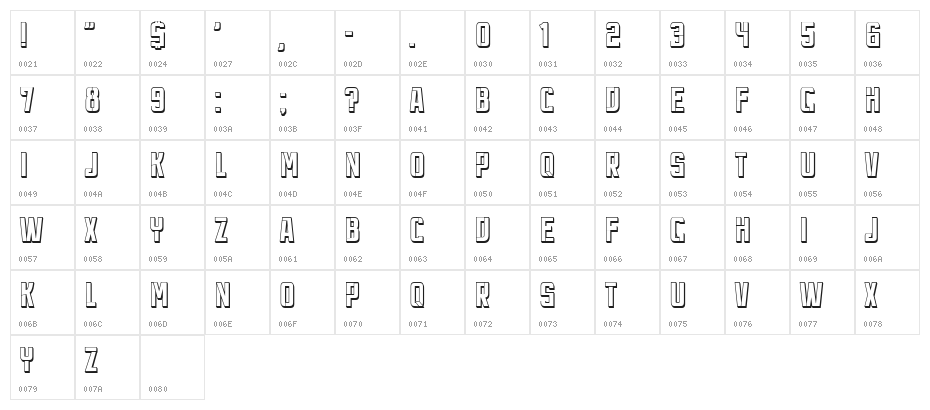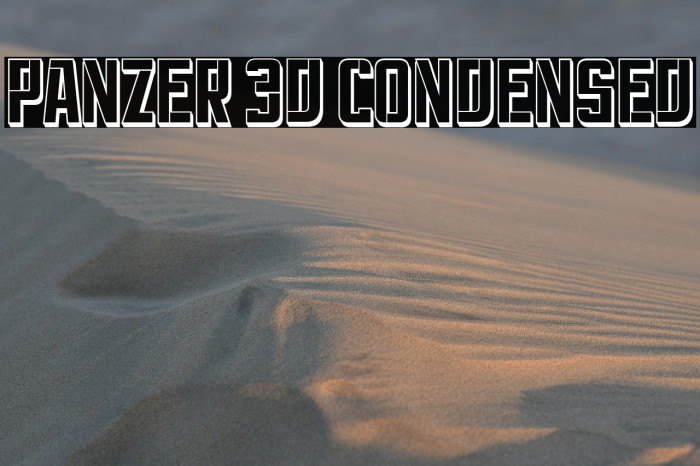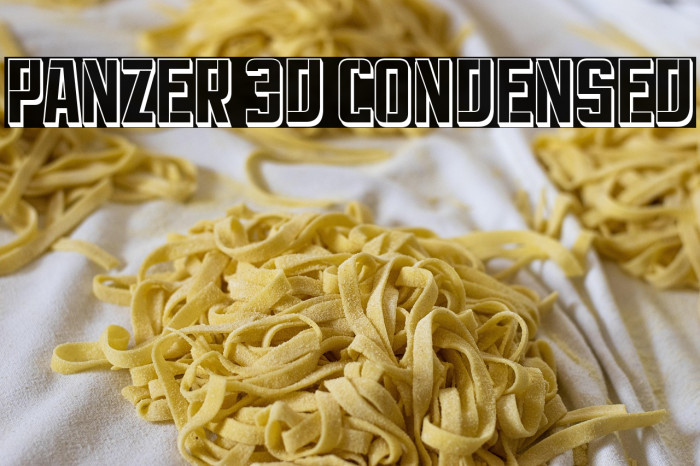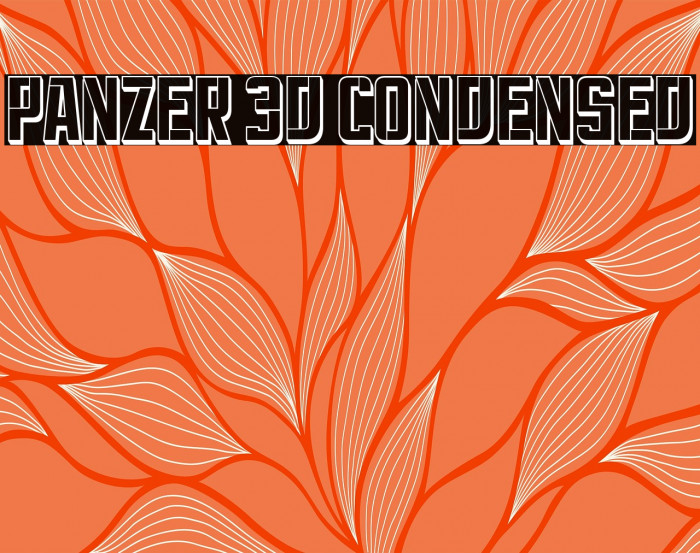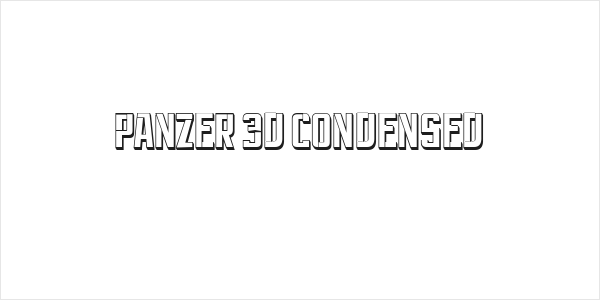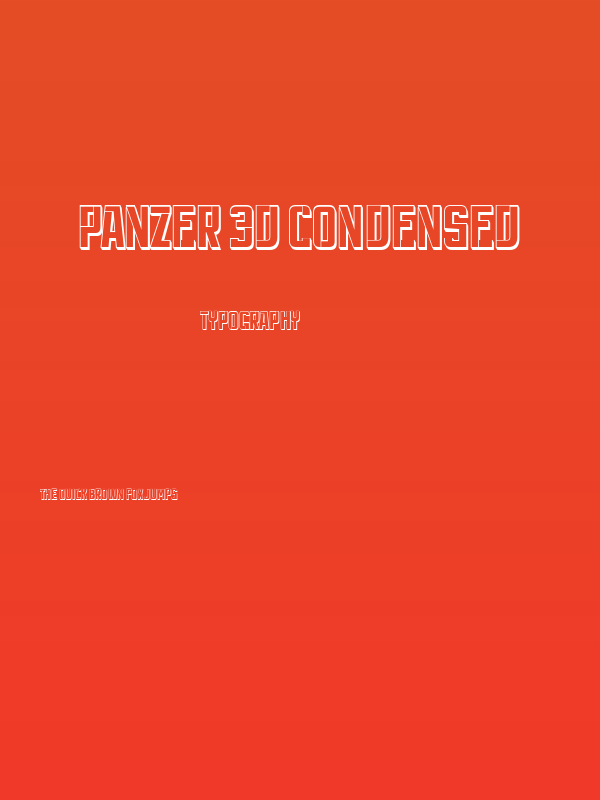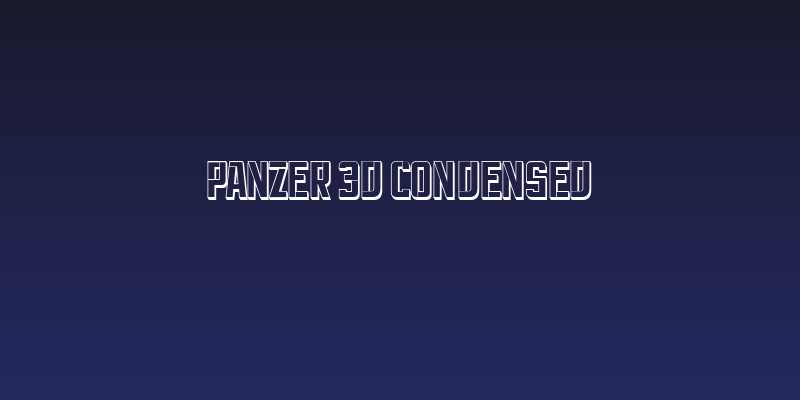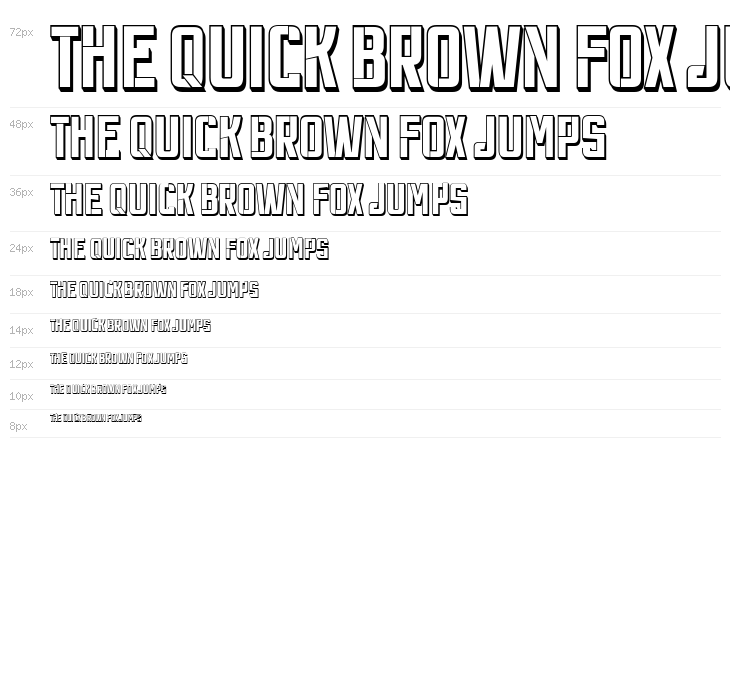
Panzer 3D Condensed Font
Panzer 3D Condensed Description
This font features a bold, three-dimensional design with a condensed structure. The letters are outlined with a thick black border, giving them a striking and impactful appearance. The 3D effect is achieved through a clever use of shading and perspective, making each character appear as if it is popping off the page. The uppercase letters are uniform in height, while the numerals and special characters maintain the same bold style. This font's unique design makes it ideal for projects that require a strong visual impact.